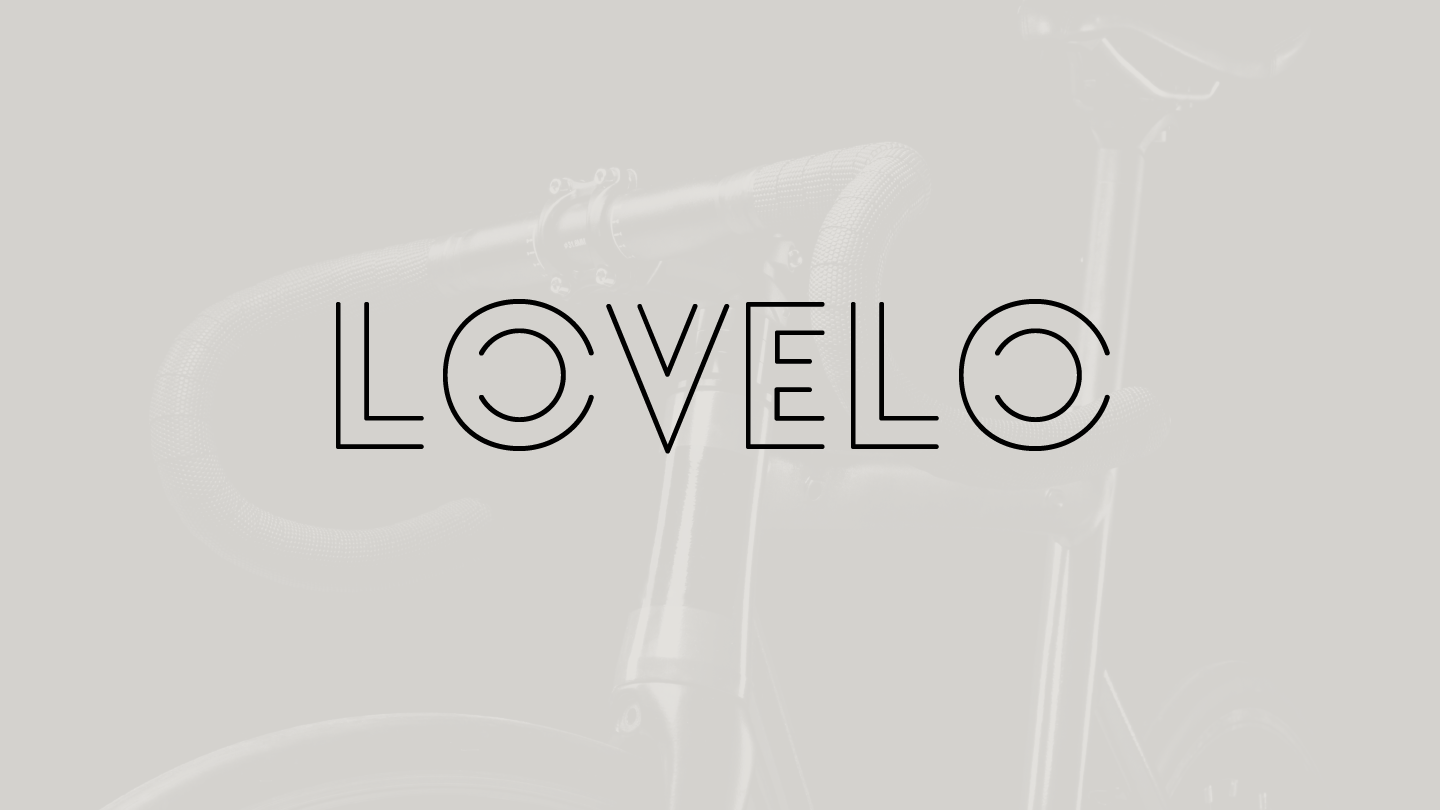
Web downloading the lovelo fonts we've listed font variations below for you to try on your new project! Web free fonts download lovelo font family download sans serif, geometric lovelo font is an elegant set of typefaces that come with trendy stylish appearance. Like, create beautiful emblems, brochure layout, book covers, banners provide, product.